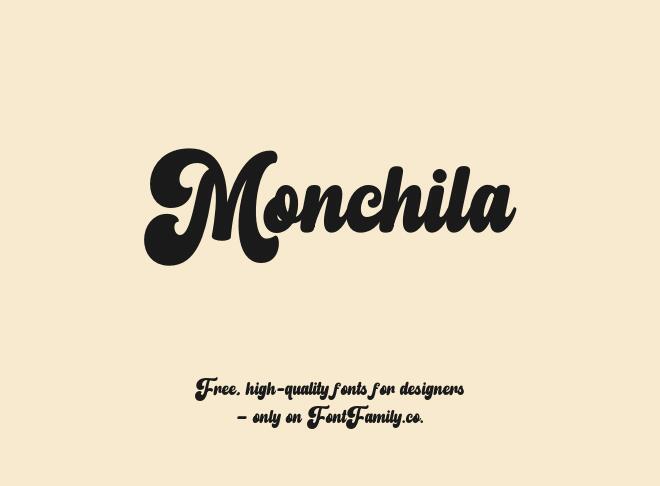
Monchila Font
Monchila Font is a modern, playful, and handwritten styled font that brings a youthful and energetic vibe to your designs. It features a unique blend of natural hand-drawn strokes that makes it stand out. It's incredibly versatile, ideal for a wide range of design projects including logos, social media graphics, posters, and more. Compared to other fonts, Monchila Font offers a more relaxed and informal style, perfect for adding a personal touch to your work. Its modern handwriting style makes it a great choice for brands looking to convey creativity, playfulness, and modernity. With its Open Font License, it's freely available for both personal and commercial use, making it a valuable addition to any designer's toolkit.